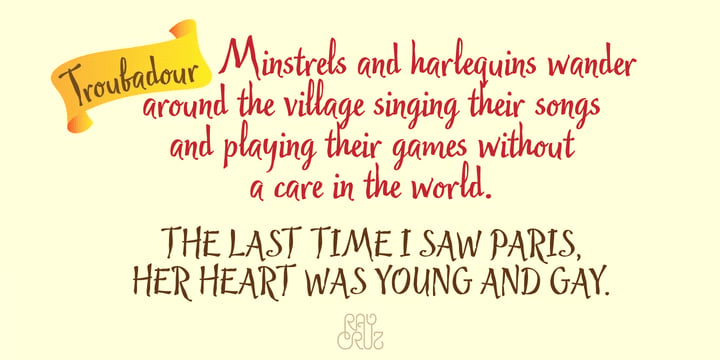
Troubadour
About Troubadour
Poets and musicians flourishing in southern France and northern Italy during the 11th to 13th centuries. Troubadour was designed by using a custom brush created with Adobe Illustrator. A digital tablet was used to draw all the characters in the font.…